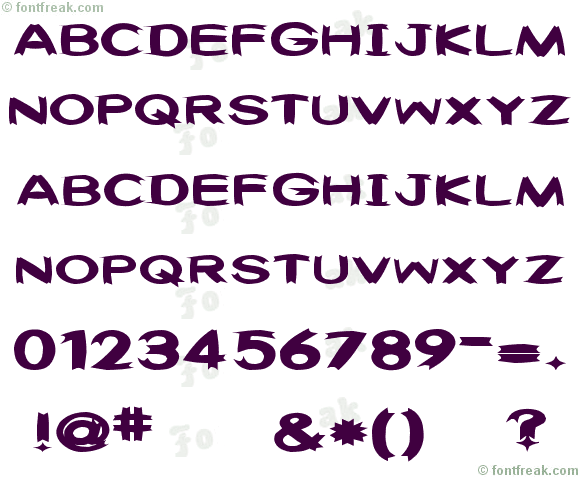
Washable (sRB)
About Washable
The Washable font by Srb-powers is a distinctive display typeface that captures attention with its unique design. Characterized by a playful, hand-drawn aesthetic, this font features irregular stroke weights and a slightly distressed look, giving it an organic and casual feel. The uneven edges and varied spacing between letters contribute to its playful charm, making it stand out in various applications.
Ideal for creative projects, the Washable font excels in use cases such as children’s book covers, fun event posters, and trendy restaurant menus. Its whimsical appearance makes it perfect for birthday invitations, where a lighthearted and festive tone is desired. Additionally, it can be effectively used in branding for businesses targeting a younger audience, such as cafes or toy shops, as it evokes a sense of warmth and approachability.
The target audience for this font includes graphic designers, small business owners, and content creators who seek to add a personalized touch to their designs. It offers versatility, appealing to those looking to create engaging visuals that resonate with their audience.
What sets the Washable font apart is its ability to blend playfulness with a professional edge. The handcrafted style allows for a personal connection while remaining suitable for a variety of contexts. Whether you're designing promotional materials or crafting unique digital content, the Washable font free download offers an accessible solution for those wanting to infuse creativity into their projects. Its charming design and functional versatility make it a valuable addition to any designer’s toolkit, ensuring that your work stands out in a crowded landscape.